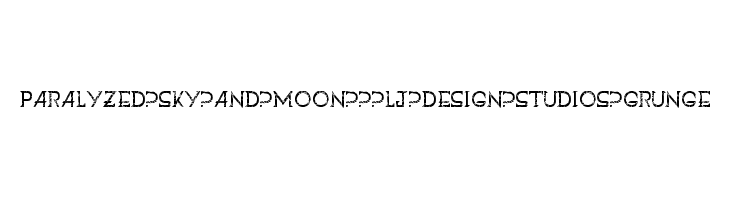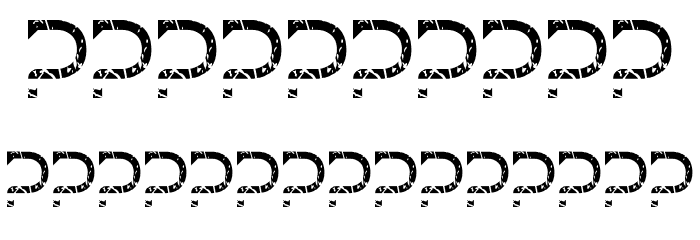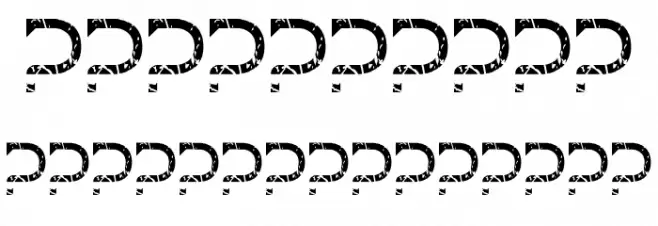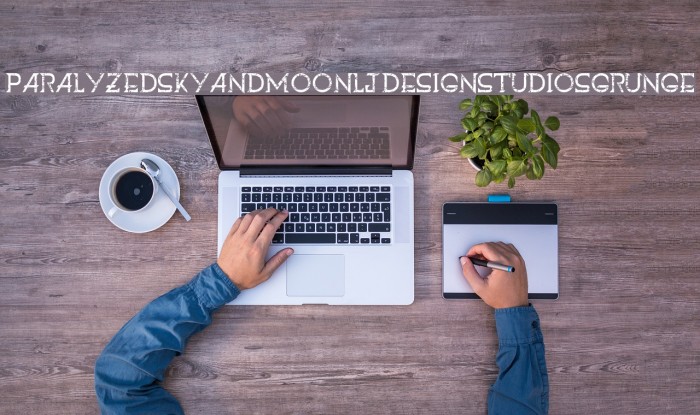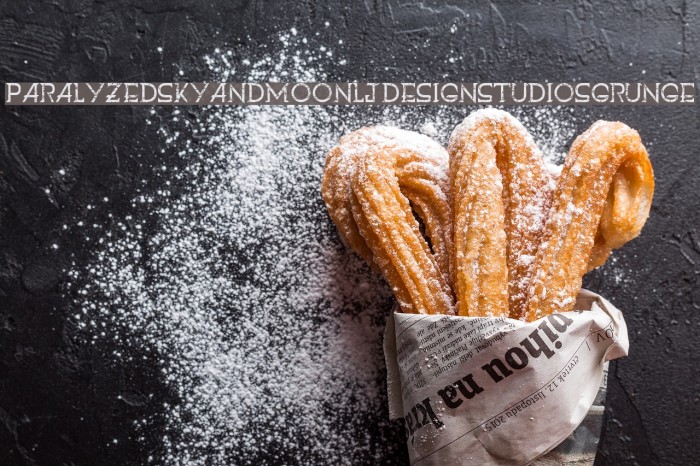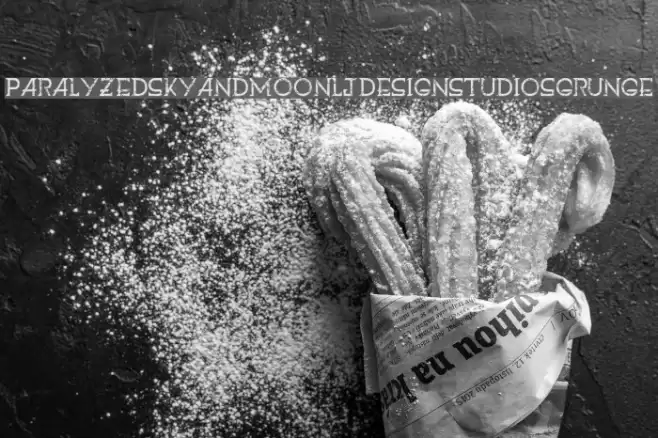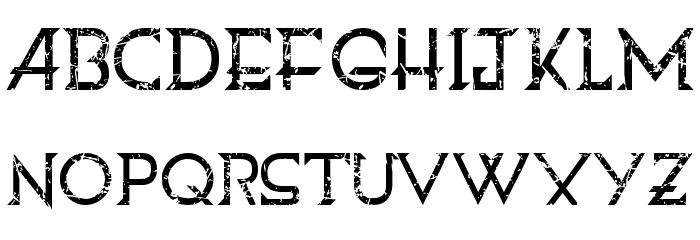
Paralyzed Sky and Moon - LJ-design Studios Grunge Font
Paralyzed Sky and Moon - LJ-design Studios Grunge Description
This font exhibits a bold and distressed style, characterized by its grunge texture and angular, geometric shapes. The uppercase letters are uniform in height and width, creating a cohesive and structured appearance. The distressed effect adds a rugged, worn look, making it ideal for projects that require a vintage or edgy aesthetic. The font's unique style is both eye-catching and versatile, suitable for a variety of design applications. Its boldness ensures readability, while the grunge elements provide a distinctive character.
| Overall Style | Grunge, Vintage |
| Proposed Projects | Ideal for album covers, posters, branding for edgy or vintage-themed products, and graphic design projects that require a bold statement. |